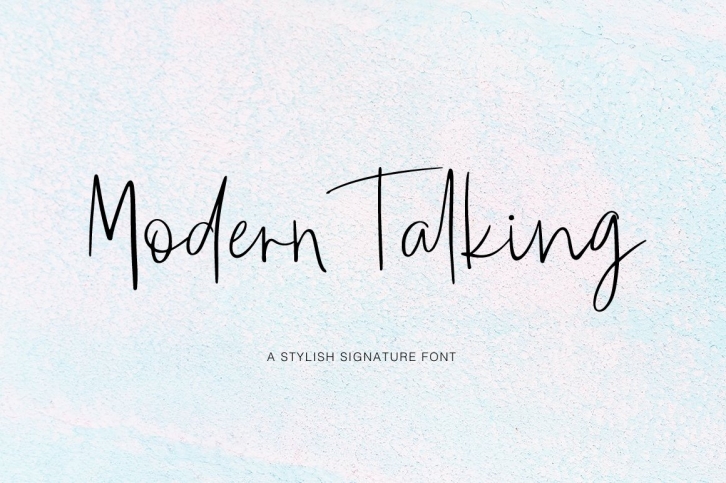
Modern Talking script- a new fresh handmade calligraphy font.
This font is ideal for branding and decorate your any project, are perfect for wedding invitation or your blog. Also with their help, you can create a logo or beautiful frame for your home. Or just use for your small business, book covers, stationery, marketing, magazines and more. Special for you I prepared a lot alternates and ligatures.